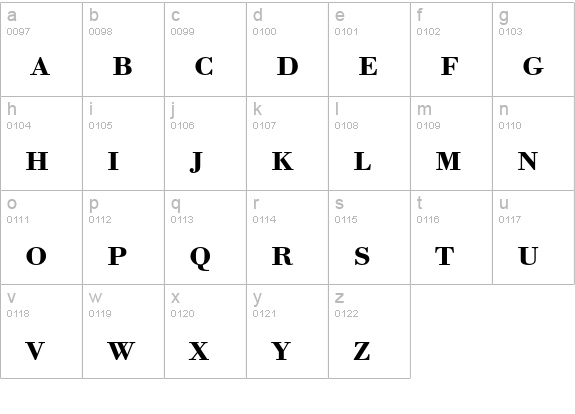
Bodoni BE Medium Expert is a balanced, medium-weight variant in the Bodoni typeface family \xE2\x80\x94 well suited to sub-headlines, navigation, and balanced editorial work.
Bodoni BE Medium Expert font is a timeless and elegant typeface that exudes sophistication and style. With its classic serif design and clean lines, this font is perfect for creating professional and polished designs. The medium weight of the font strikes a perfect balance between boldness and subtlety, making it versatile for a wide range of applications. The Bodoni BE Medium Expert font is available for free download at FontsMarket.com, making it easily accessible to designers and creators looking to elevate their projects with a touch of classic beauty. Whether you're working on a branding project, editorial layout, or any other creative endeavor, this font will add a touch of refinement and elegance to your design. Download Bodoni BE Medium Expert font today and elevate your creations with its timeless appeal.